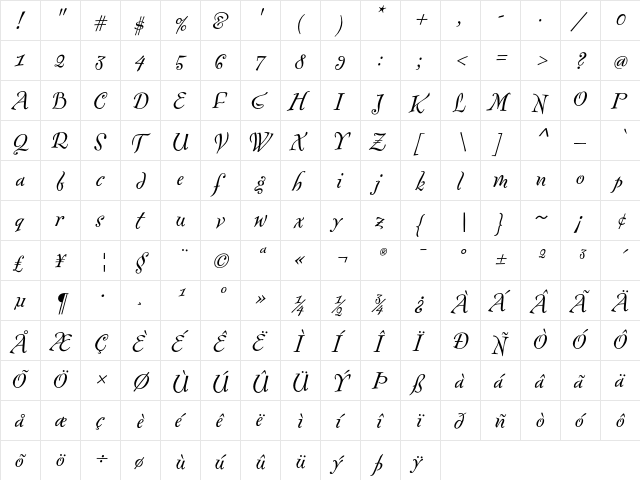
Fontesque Text Italic
Design Context for Fontesque Typeface
Fontesque takes a measured approach to typography — its balanced proportions and neutral character make it a reliable workhorse for both digital and print work. The dynamic lean of this cut emphasises speed and emphasis in any layout.
Pro Tip: Use Fontesque for emphasis, pull quotes, and subheadings where its slanted energy can add rhythm to the layout.